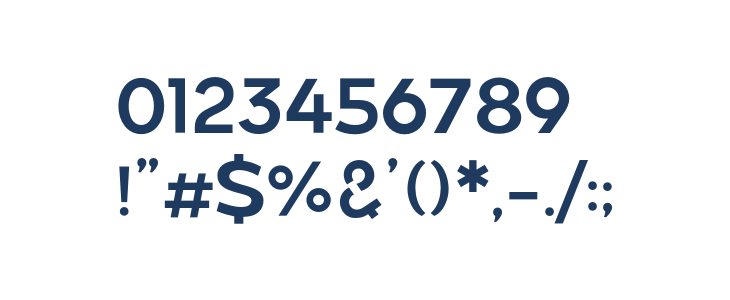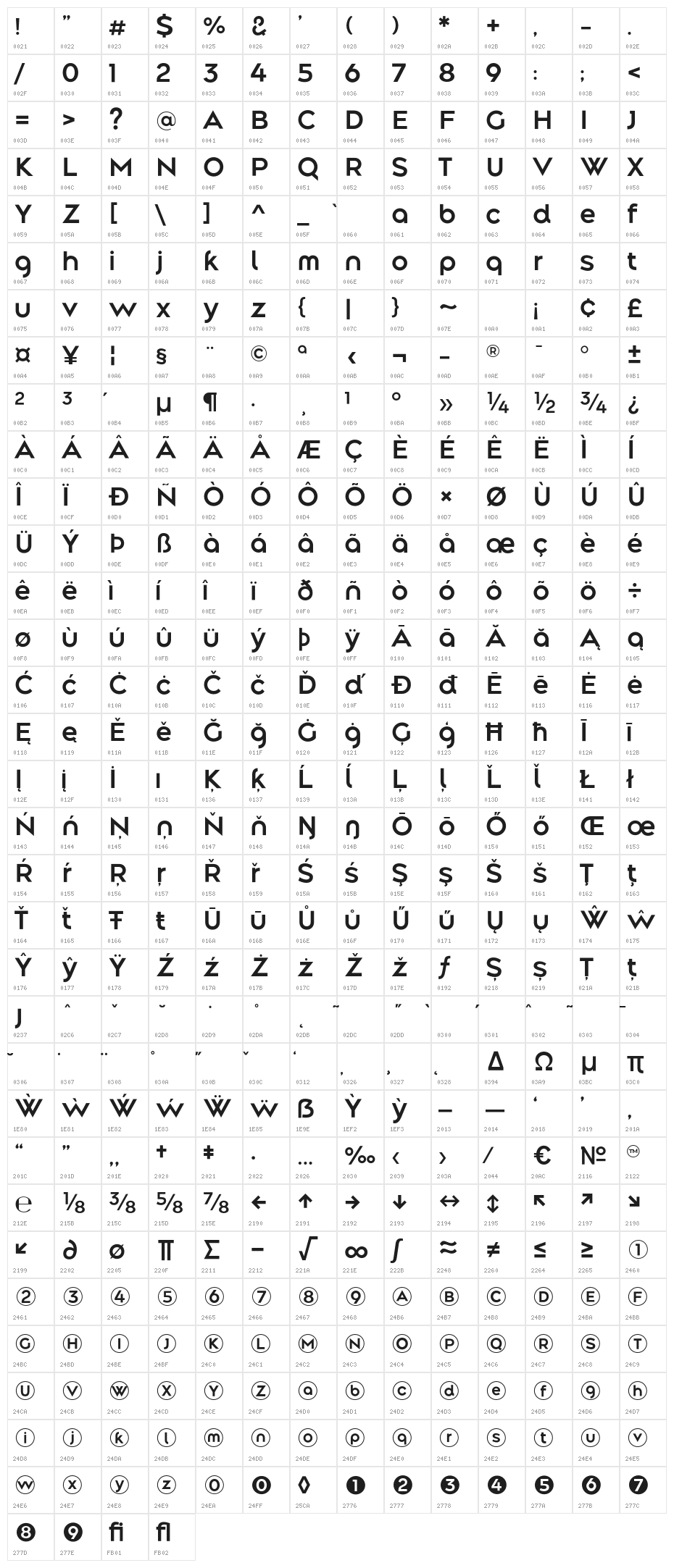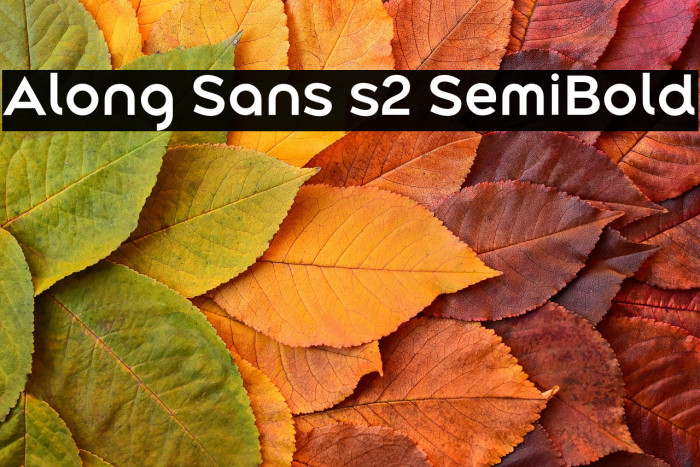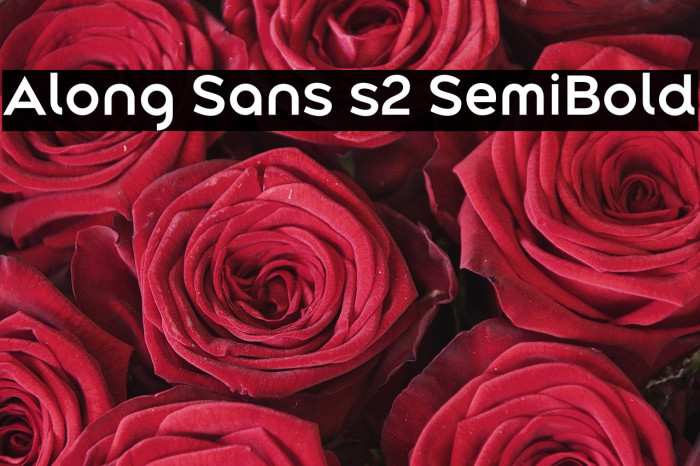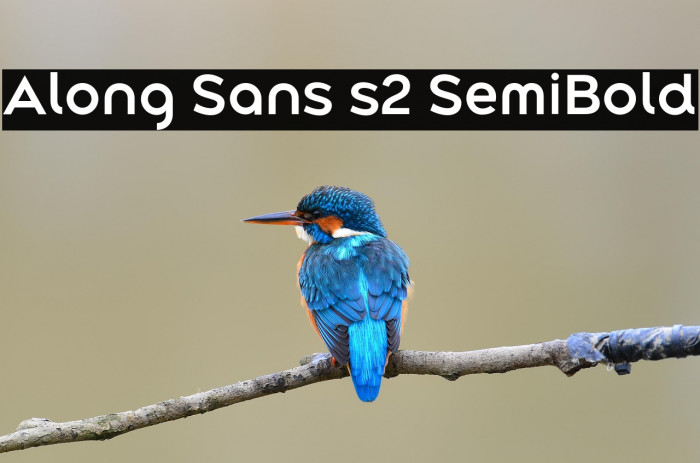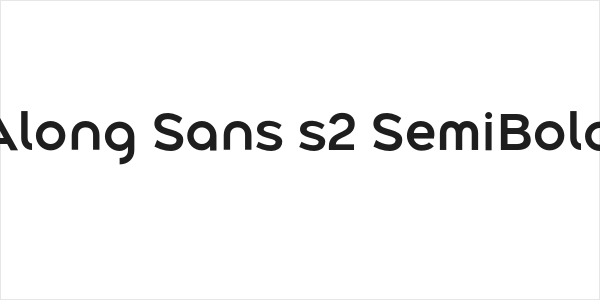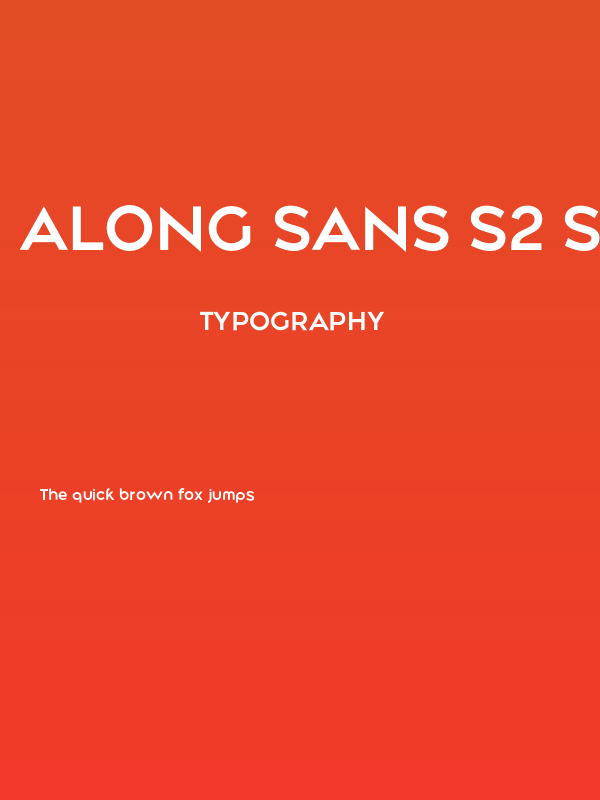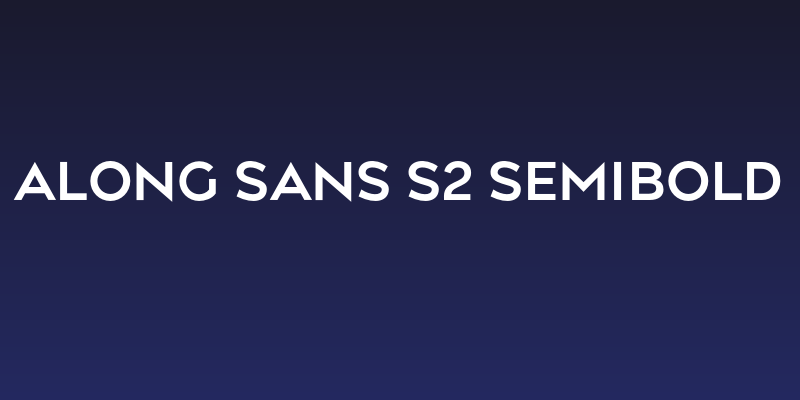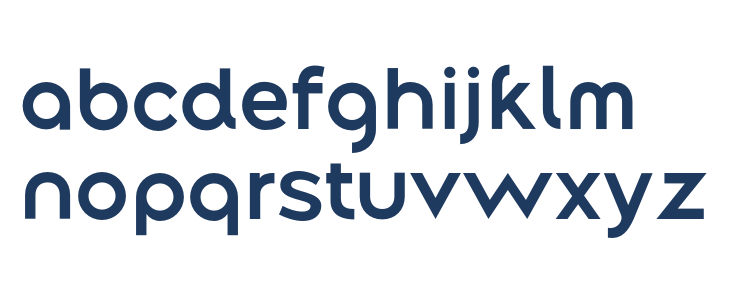
Along Sans s2 SemiBold Font
Along Sans s2 SemiBold Description
This font features a clean and modern sans-serif design with a semi-bold weight, offering a balanced and versatile appearance. The characters are well-proportioned, with a consistent stroke width that provides a harmonious and professional look. The uppercase letters are bold and impactful, while the lowercase letters maintain a friendly and approachable feel. The numerals are clear and easily distinguishable, making them suitable for various applications. Special characters are included, enhancing the font's utility for diverse design needs. Overall, this font is ideal for projects requiring a contemporary and polished aesthetic.